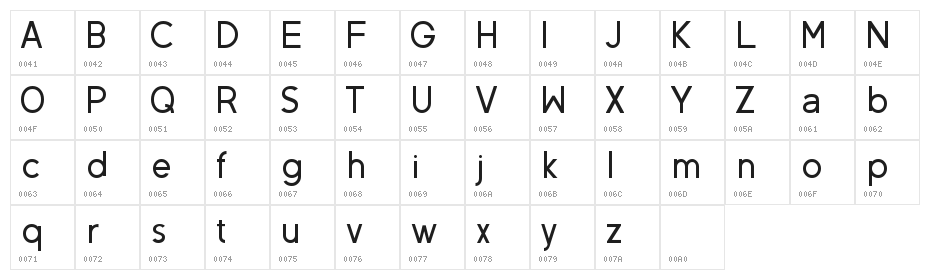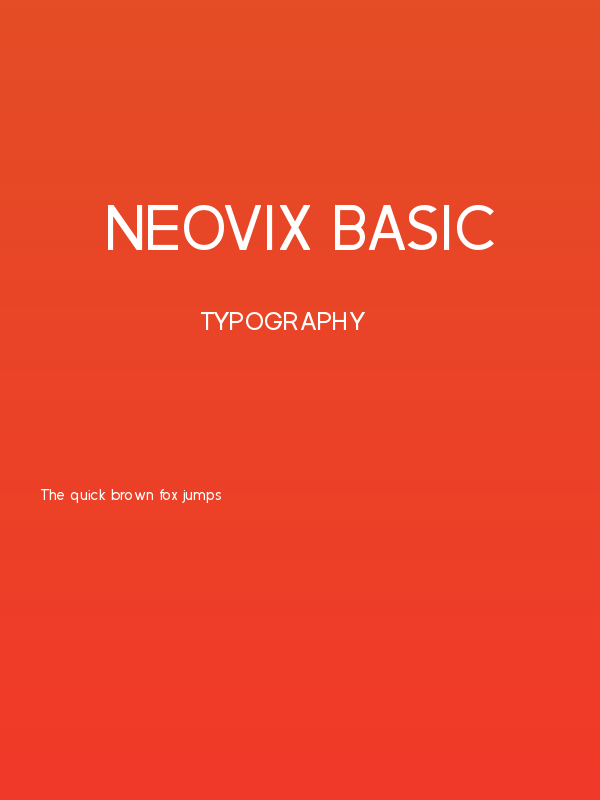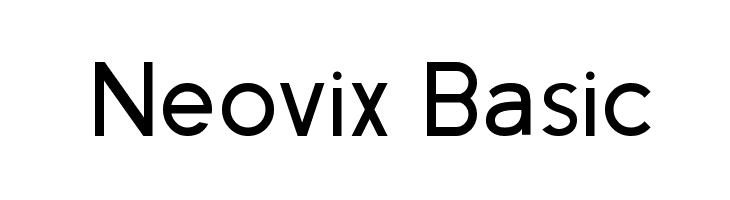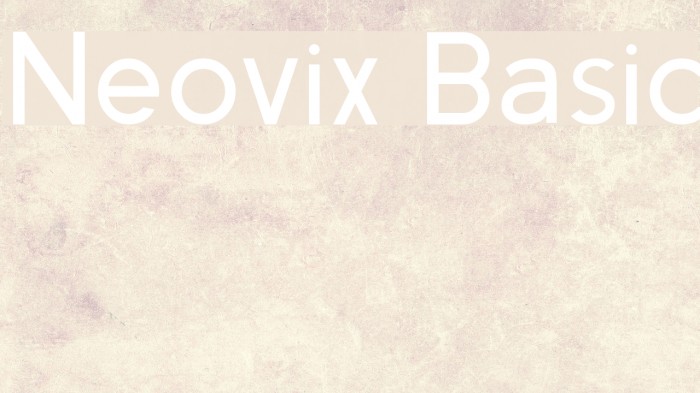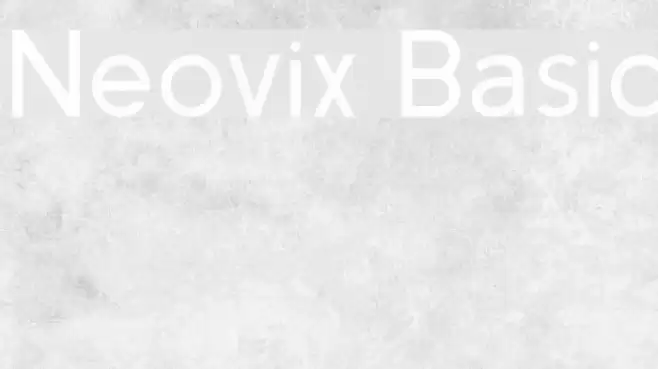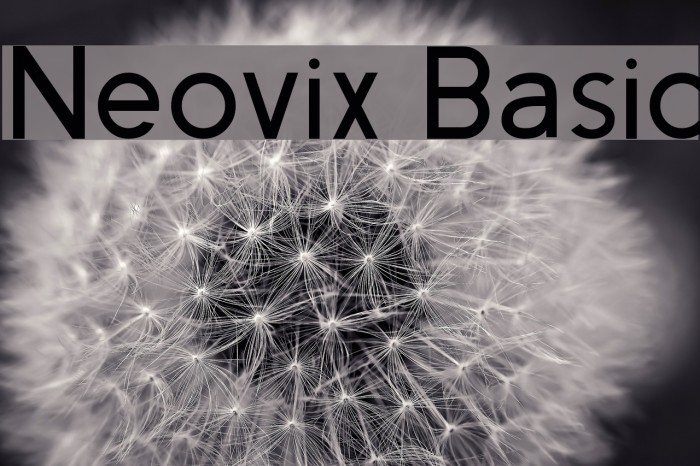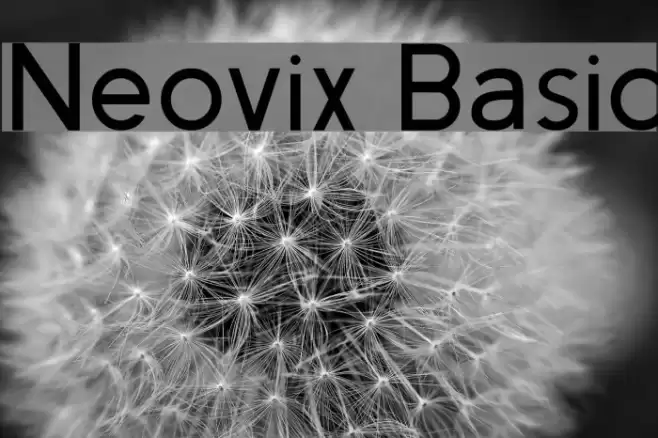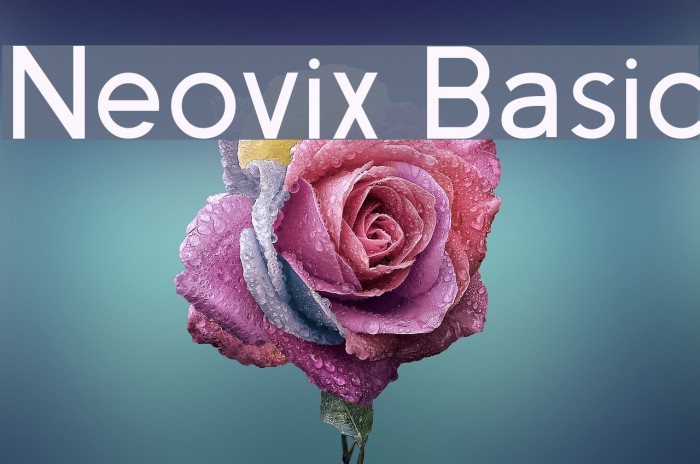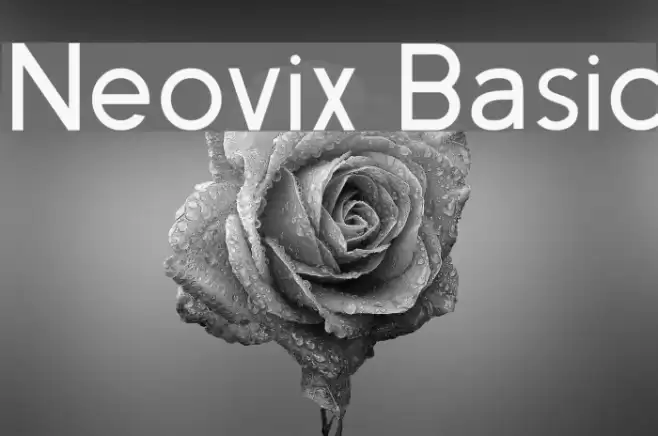
Neovix Basic Font
Neovix Basic Description
This font features a clean and modern sans-serif style with a geometric structure. The characters are well-balanced, offering a harmonious appearance that is both professional and approachable. The uppercase letters are bold and assertive, while the lowercase letters maintain a friendly and open feel. The font's design is minimalistic, making it versatile for various applications. The absence of serifs gives it a contemporary look, suitable for digital and print media. The uniform stroke width ensures readability across different sizes, and the spacing between characters is consistent, providing a neat and organized appearance.
| Use Case | Headlines, Body text, Logos |
| Proposed Projects | Ideal for branding, web design, corporate materials, and user interfaces. |